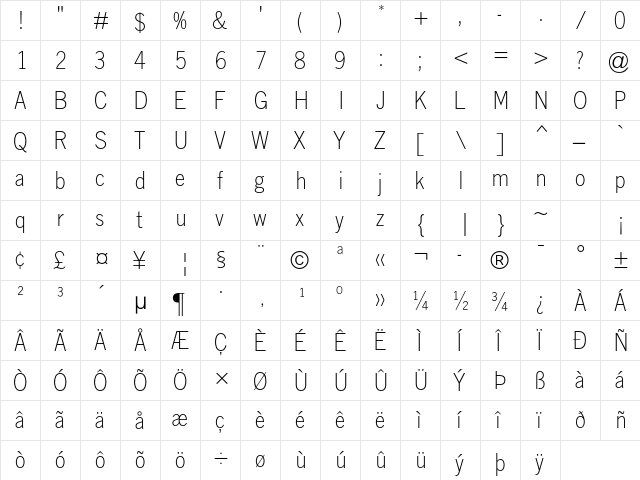
Lightline Gothic MT Std Regular
Design Context for Lightline Gothic MT Std Typeface
Lightline Gothic MT Std takes a clean, functional approach — its unadorned letterforms prioritise legibility and work reliably across screen and print environments. The delicate stroke weight brings airiness and refinement to layouts.
Ideal for fashion and beauty branding, minimal editorial layouts, and premium digital experiences.
Originally released in 1994, this typeface is available in OpenType (OTF) format.
Font Pairing: Pair Lightline Gothic MT Std with a medium or bold serif for headlines — the weight contrast creates an elegant, high-end feel.
Pro Tip: Avoid using Lightline Gothic MT Std at very small sizes where its slender strokes can disappear. It performs best at medium to large sizes.